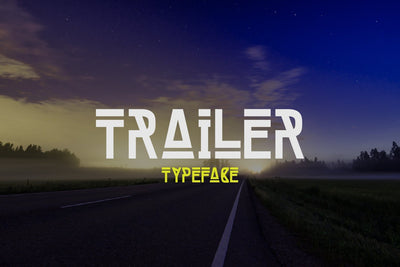
TRAILER
TRAILER is uppercase typeface with Luxury, Masculin, Modern and elegant but also suited to retro. this font has been designed to work in various combinations from conservative to funky. Retro, style, Fashionable, Classy, unique and Modern.